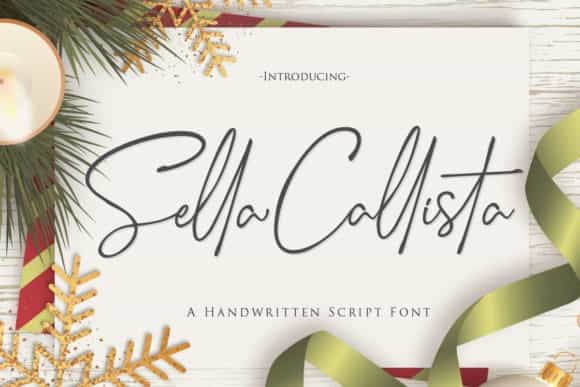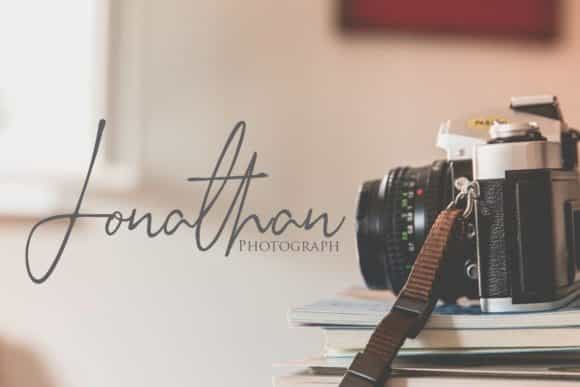
Discover Sella Callista Font, part of the Calligraphy Handwritten collection—a versatile and unique font perfect for adding a personal touch to your projects. Download it for free and enjoy crafting designs with style, from invitations to social media posts. This font is available exclusively for personal use, giving you the freedom to create without limits. Unlock your creativity with Sella Callista Font today!
Sella Callista is a one-and-only, hip and contemporary handgeiton font. Its hand look style makes it suitable for all your design projects including logos, signatures, labels, packaging design, blog headlines just to name a few.